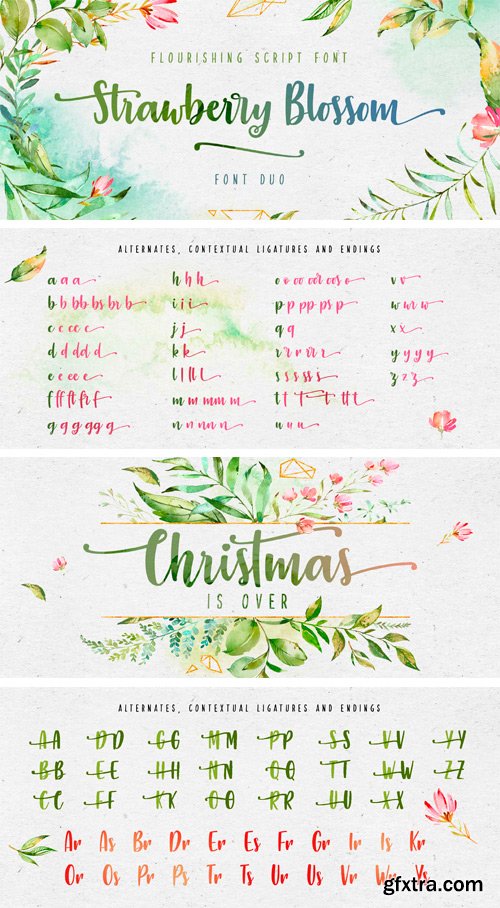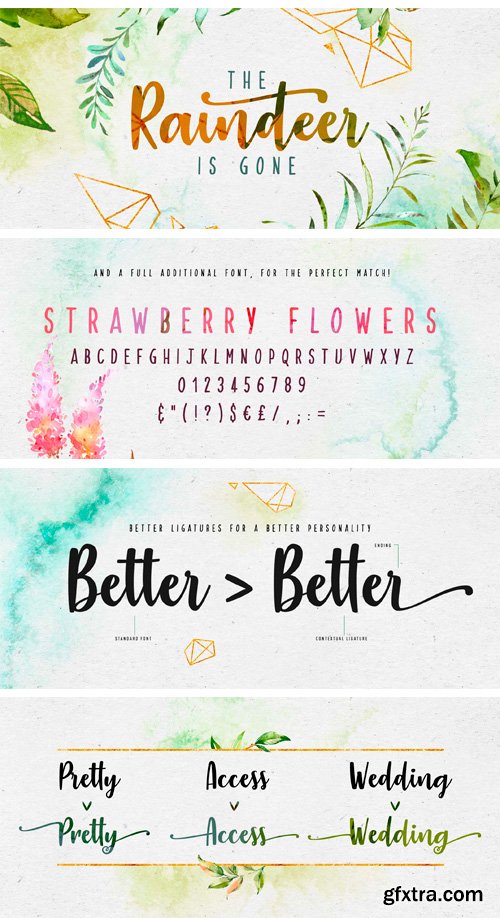
Strawberry Blossom Script Font
Introducing Strawberry Blossom Font! It is designed by StereoType. Strawberry Blossom is a casual and flourished script font. Suitable for any design needs : logo, branding, modern advertising design, logos, poster quote, book / cover Title, editorial design, card, custom mug, pillow, t-shirts, and any hand-lettered needs.